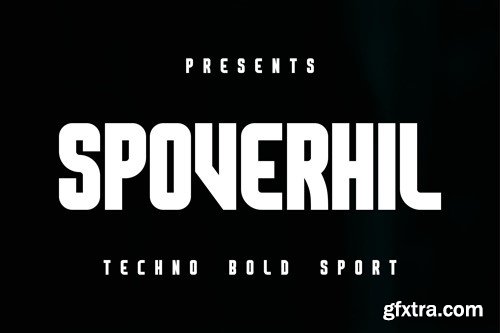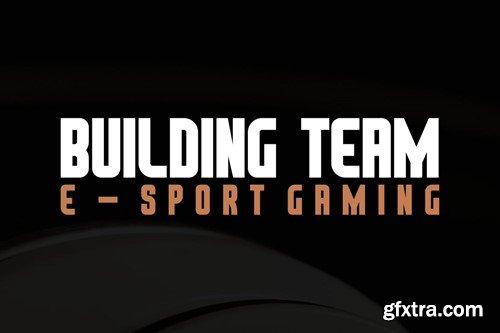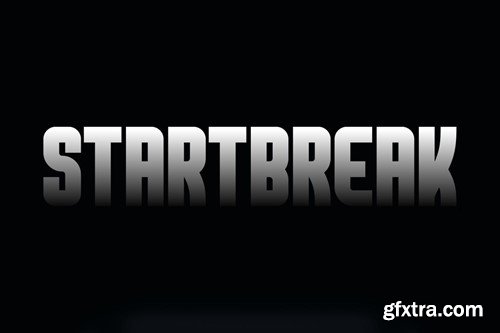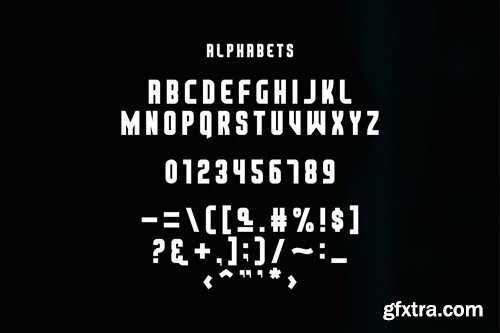
Spoverhil Font
Introducing Spoverhil, a bold font that resonates with high energy. It's crafted with sophistication, making it the perfect choice for projects related to sports, parkour and gaming among others. With Spoverhil, transform your undertakings into powerful design statements, invigorating them with an impressive visual edge that successfully encapsulates the vigor and dynamism synonymous with these domains. Let Spoverhil be the vehicle that drives your creative pursuits to innovative heights, all the while maintaining a thoroughly professional aesthetic appeal. available in .OTF & .TTF Formats.